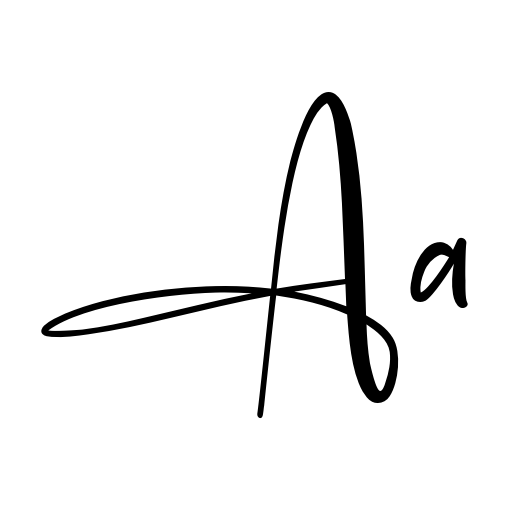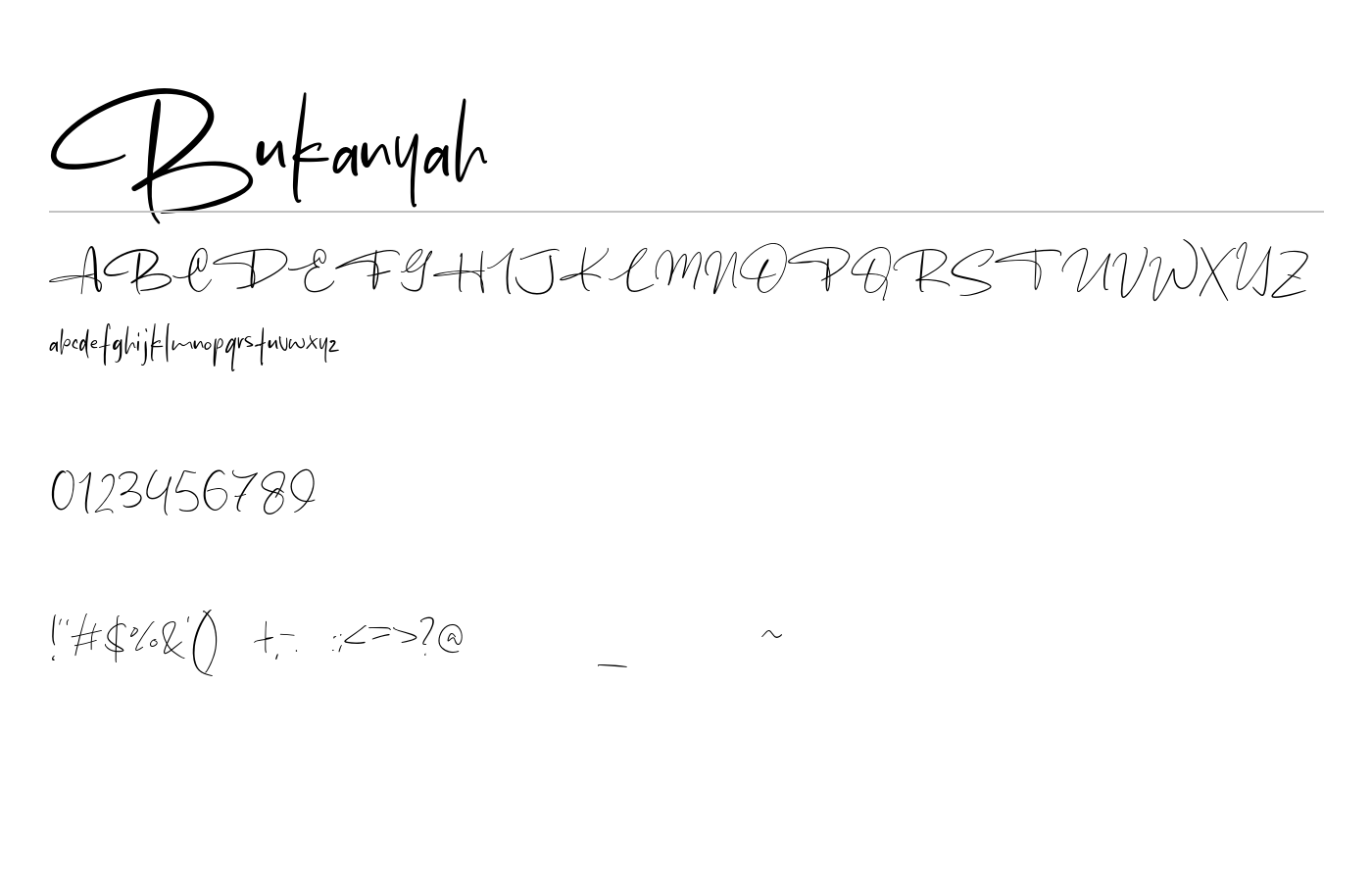
Bukanyah is a delicate, handwritten script font with tall, slender letterforms and a light, airy feel. Its fluid strokes and slightly irregular shapes give it a casual, personal touch that works beautifully for creative branding, invitations, and elegant yet playful design projects. This font shines in contexts where a modern, friendly, and approachable handwritten style is desired.
Bukanyah Font
About Bukanyah Font